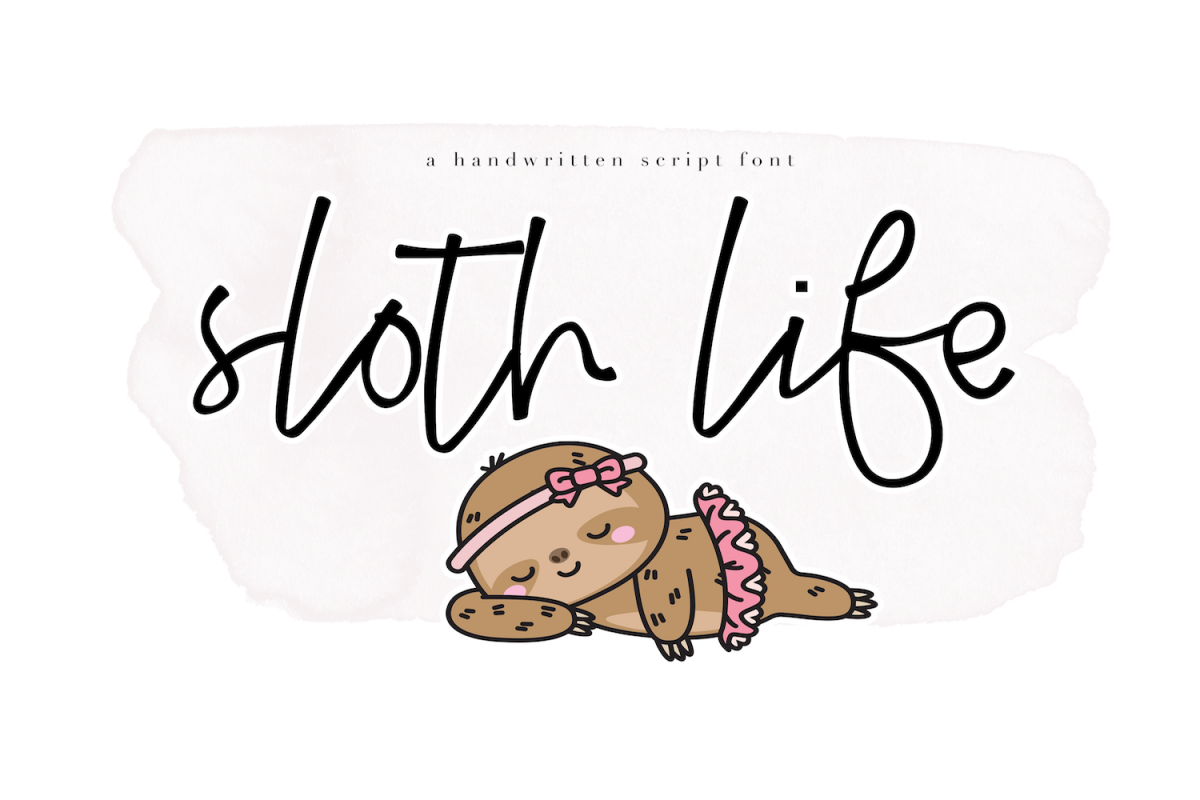
Sloth Life - Handwritten Script Font
Sloth Life is a fun handwritten script font.
This font is perfect for quotes, headings, designs, logos, invitations and more!